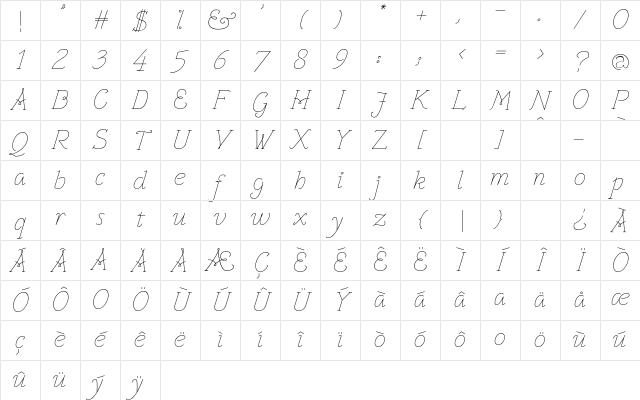
Complete VTF Victorianna Thin Italic glyph index. Displaying only characters natively supported by VTF Victorianna Thin Italic font.
VTF Victorianna is a composed and adaptable typeface that performs quietly and consistently across a wide range of design contexts. The slanted form adds forward momentum and visual energy. Its slender proportions lend an understated elegance to any composition.
Pro Tip: Use VTF Victorianna for emphasis, pull quotes, and subheadings where its slanted energy can add rhythm to the layout.